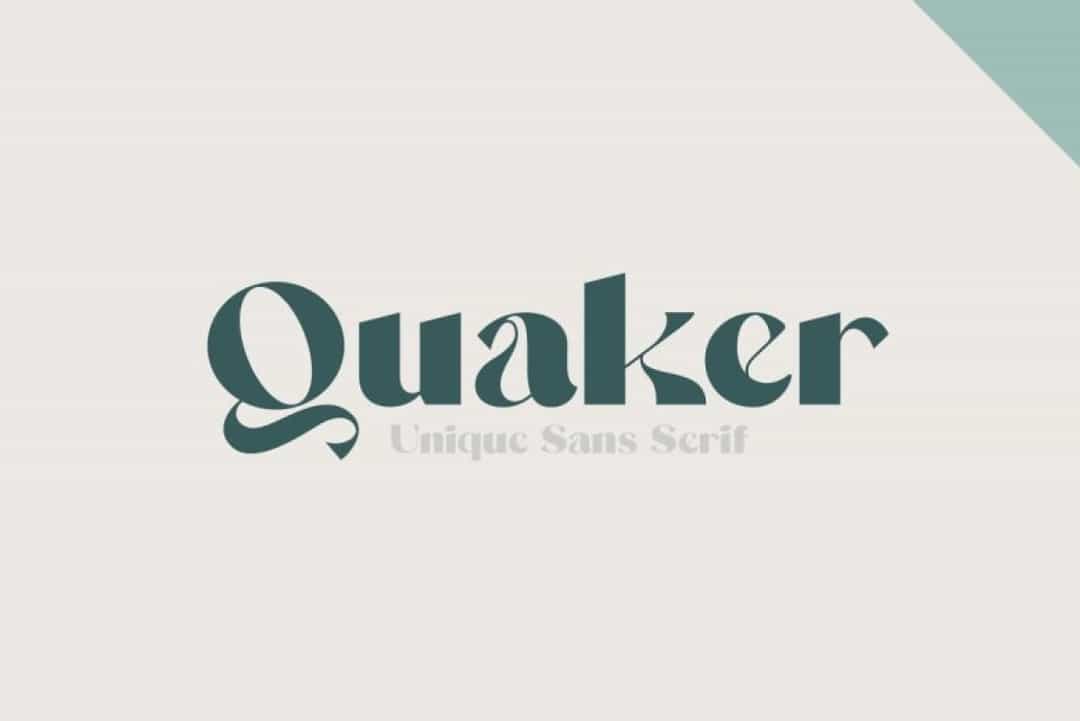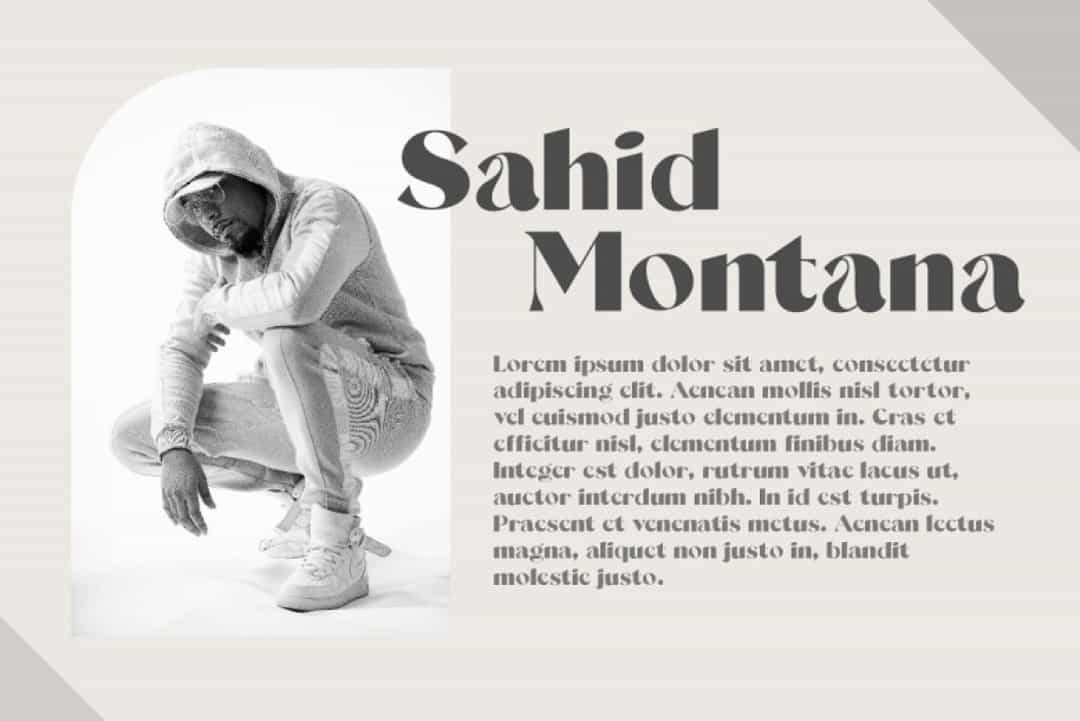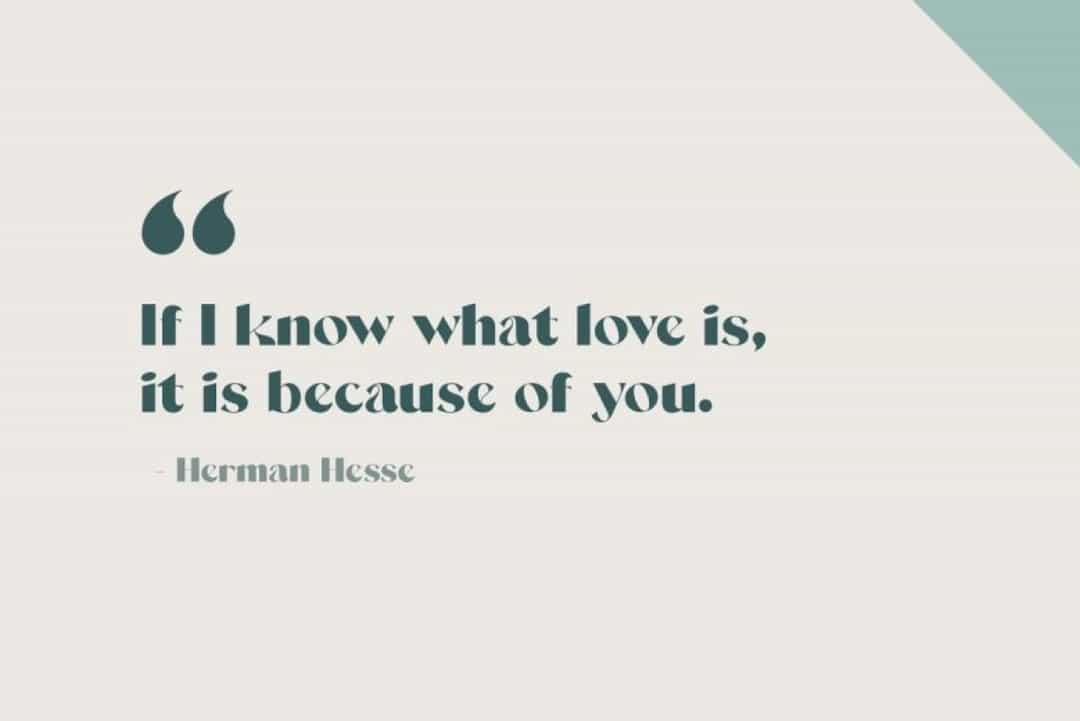
Quaker Font is an aesthetically pleasing sans serif typeface designed to produce striking headlines and designs with its distinct uppercase letters, lowercase characters, numbers punctuation marks and multilingual letters. Ideal for creating striking headlines and designs. Versatile enough for use across small to large sizes.